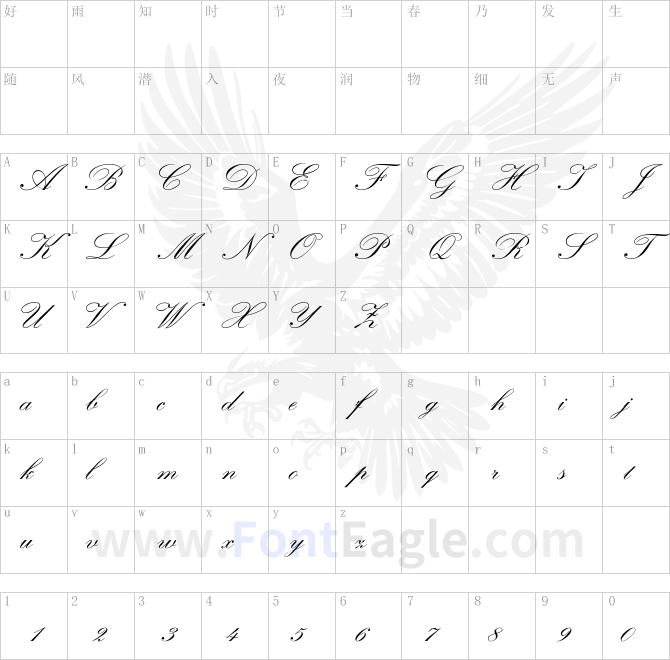
KuenstlerScript-TwoBold is a great font, widely used in graphic design, single-page menu design, poster design and other fields, and is deeply loved by designers.KuenstlerScript-TwoBold download.